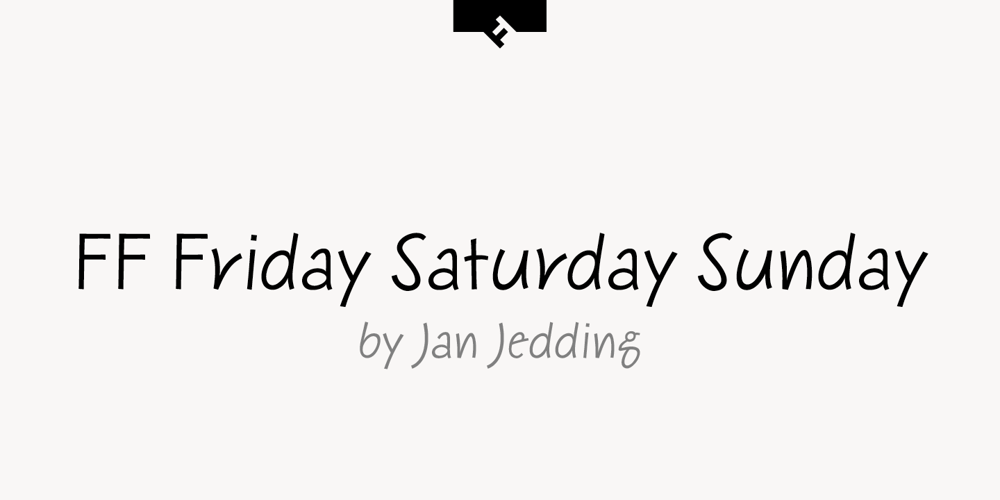
FF Friday, Saturday, Sunday Font Family was designed by Jan Jedding and published by FontFont. FF Friday, Saturday, Sunday contains 3 styles and family package options. German type designer Jan Jedding created this script FontFont in 1994. The family contains 3 weights: Regular, Semi Bold, and Bold and is ideally suited for advertising and packaging, festive occasions as well as software and gaming. FF Friday Saturday Sunday provides advanced typographical support with features such as ligatures and case-sensitive forms. It comes with proportional oldstyle figures.